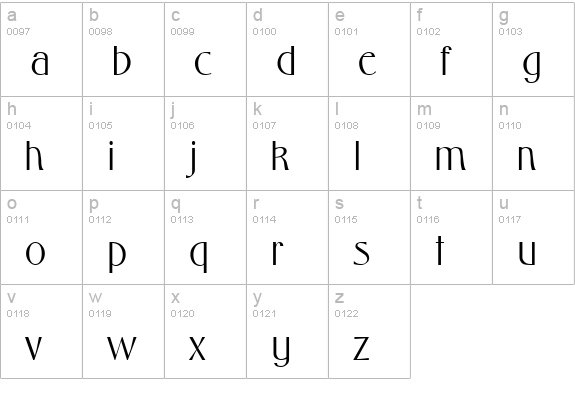
NewRixFancy Font Details
Introducing NewRixFancy font, a captivating typeface that exudes elegance and sophistication. With its intricate details and stylish flourishes, NewRixFancy is the perfect choice for adding a touch of luxury to your design projects. This exquisite font is sure to make a lasting impression, whether used for branding, invitations, or any creative endeavor. And the best part? NewRixFancy is completely free to download at FontsMarket.com! Take advantage of this incredible opportunity to enhance your designs with a premium font that will elevate your work to the next level. Don't miss out on the chance to add a touch of glamour to your projects with NewRixFancy font, available for free download now.